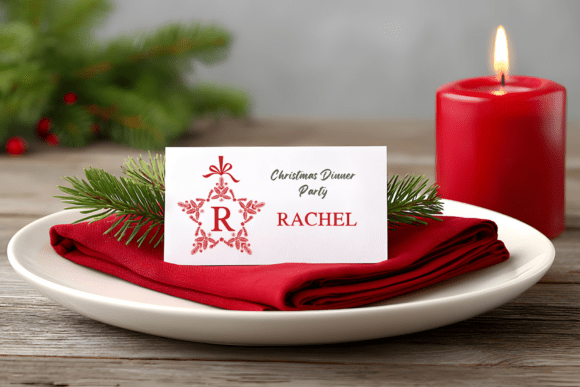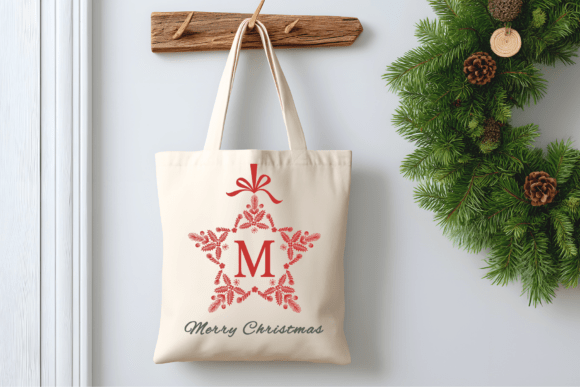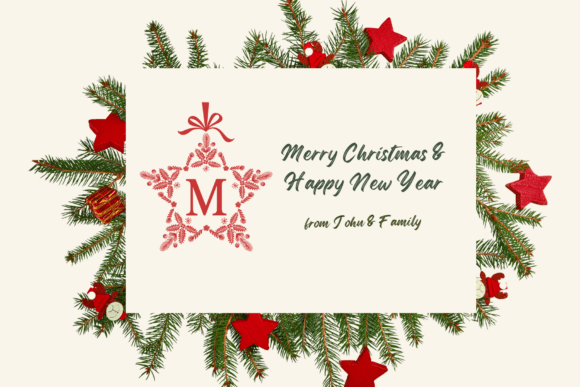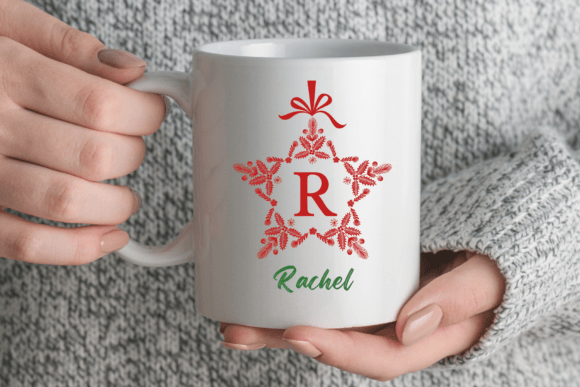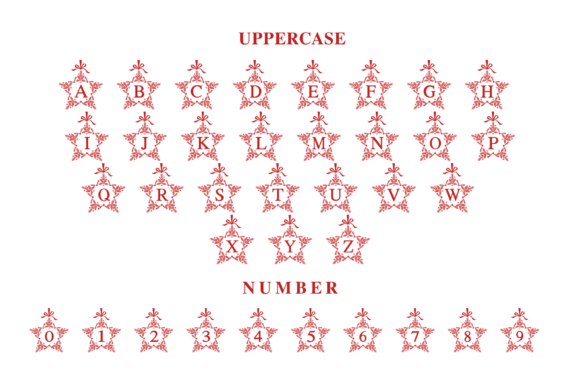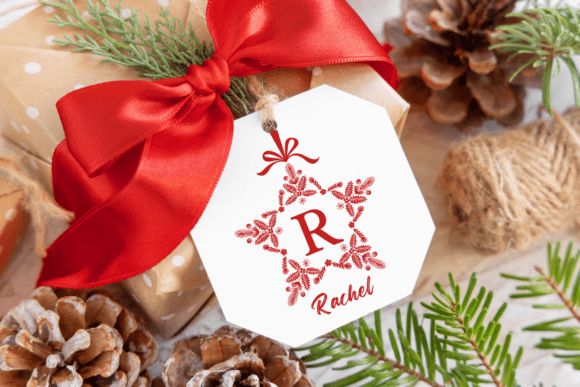
Introduction to Holly Star Monogram Font
Holly Star Monogram is a charming Christmas font featuring elegant letters framed within festive star ornaments adorned with holly leaves and a delicate bow.
Perfect for Christmas cards, gift tags, invitations, logos, and holiday crafts — this font adds a joyful sparkle to every seasonal creation .
Key Features of Holly Star Monogram Font
Why Choose Holly Star Monogram Font?
Holly Star Monogram Font offers exceptional quality and versatility, making it a valuable addition to your design toolkit. Whether you’re creating for personal projects or commercial use, Holly Star Monogram Font delivers professional results.